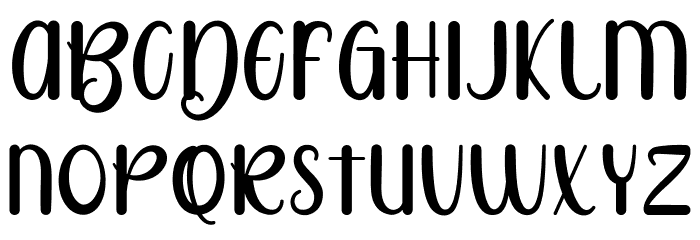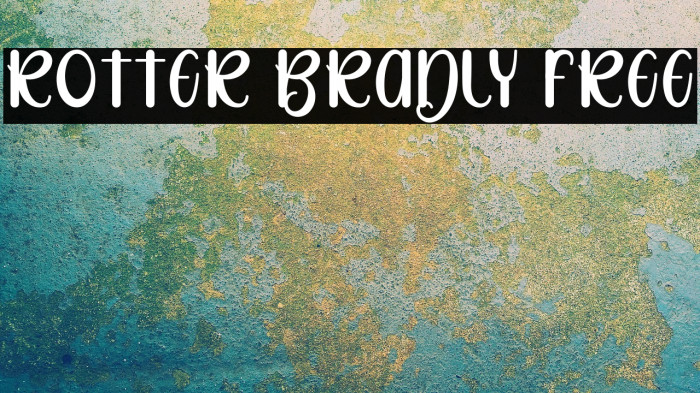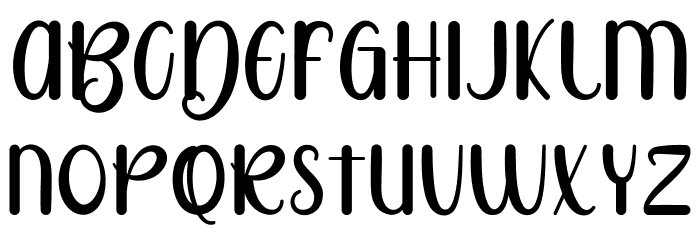
Rotter Bradly FREE Font
Rotter Bradly FREE Description
This font features a playful and whimsical design, characterized by its bold and rounded letterforms. The strokes are thick and consistent, providing a strong visual presence. Each character has a unique flair, with some letters incorporating subtle curls and loops that add to the overall charm. The font maintains a consistent baseline, ensuring readability while still offering a touch of creativity. Its style is reminiscent of hand-drawn lettering, making it suitable for projects that require a personal and approachable feel. The uniformity in stroke width gives it a balanced appearance, while the slight variations in character shapes add an element of fun.
A playful, bold font with rounded, whimsical letterforms from Cartoon fonts.
- Proposed Projects: Ideal for children's books, playful branding, greeting cards, and creative posters.
- Overall Style: Playful, Whimsical